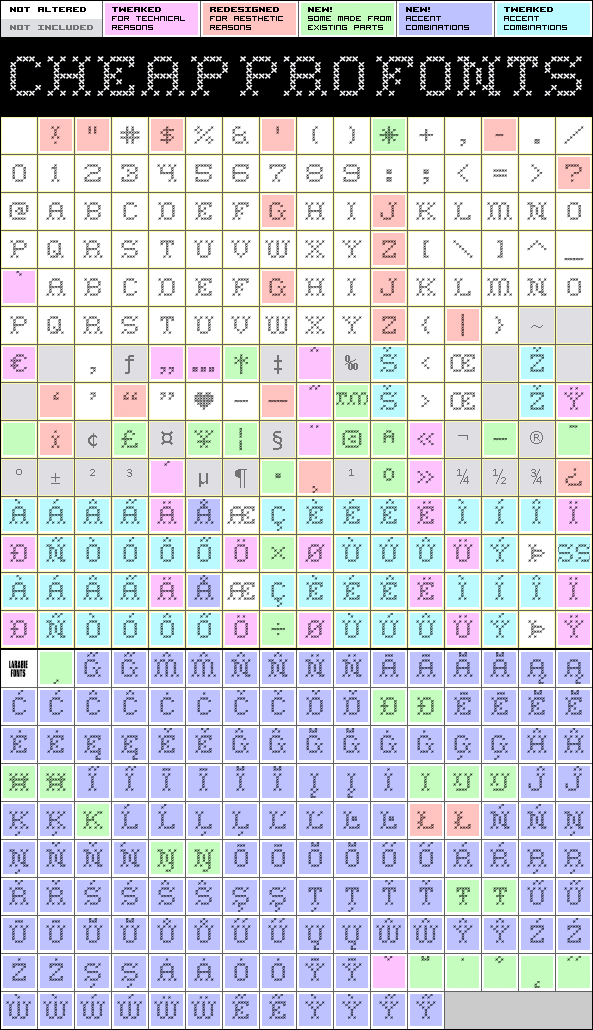
Home Sweet Home Pro
Home Sweet Home Pro by Ray Larabie
Ray Larabie
354 glyphs!
(188 in original)
73 class kernpairs
= 8523 kerning pairs
(none in original)
Nothing says cozy and homely like cross-stitching and needlework ;) This reworked version of Ray Larabies font is now ready for setting in lots of languages...
Home Sweet Home Pro is a professionally reworked font that contains an extended character set for setting text in 65 languages requiring more than the basic A-Z!